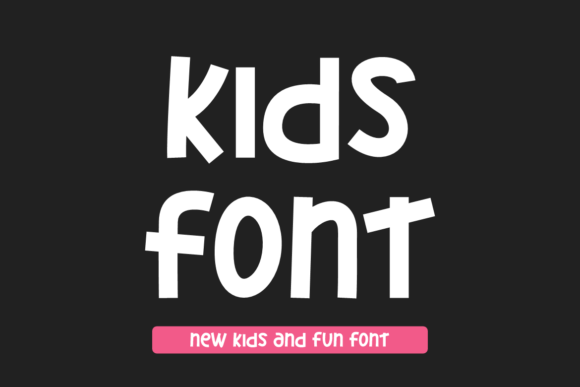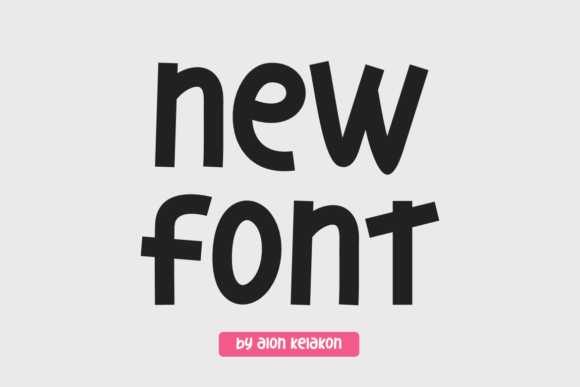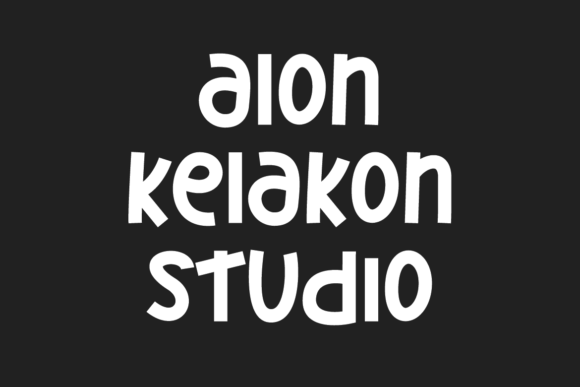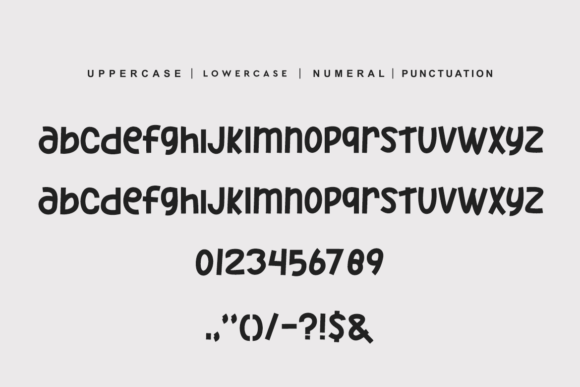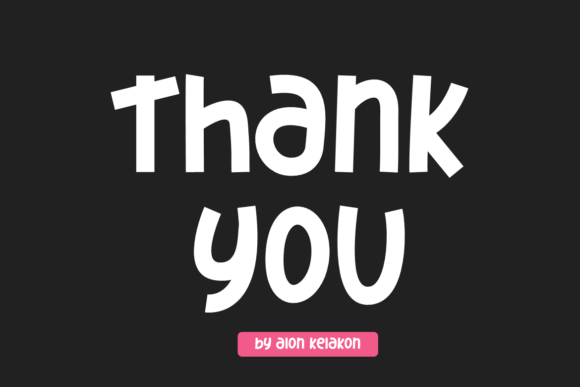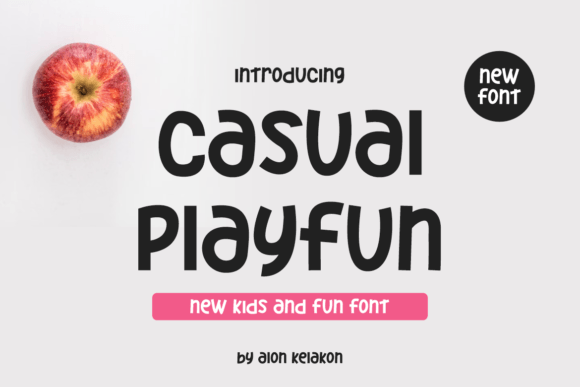
Casual Playfun Font: The Ultimate Design Companion for Creatives
Are you tired of using the same old fonts for your designs? Look no further! Introducing the Casual Playfun Font, a unique and versatile typeface that’s perfect for adding a touch of playfulness to your creations. In this article, we’ll dive into the world of Casual Playfun Font and explore its features, uses, and benefits for designers and crafters.
What makes Casual Playfun Font unique?
Casual Playfun Font stands out from the crowd with its distinctive and quirky design. Its casual and relaxed vibe makes it perfect for a wide range of applications, from labeling and clothing to movie scenes, posters, and more. The font’s playful personality shines through in its irregular shapes, varying line widths, and whimsical flair.
Endless possibilities for creative expression
Casual Playfun Font is incredibly versatile, making it perfect for a wide range of design applications. Here are just a few ideas to get you started:
- Labeling: Add a playful touch to your product labels, packaging, or branding materials.
- Clothing: Create eye-catching t-shirt designs, hoodies, or hats that showcase your personality.
- Movie scenes: Add a dash of whimsy to your movie titles, posters, or scene headers.
- Posters: Create bold and eye-catching posters for events, promotions, or advertising campaigns.
- Movie titles: Make your movie titles stand out with a unique and playful font.
- Gigs: Promote your music gigs or events with stylish and attention-grabbing posters.
- Album covers: Give your music a visual identity with a custom album cover featuring Casual Playfun Font.
- Logos: Create a memorable and playful logo for your brand or business.
Tips for getting the most out of Casual Playfun Font
To get the most out of Casual Playfun Font, here are a few tips:
- Experiment with colors: Try pairing the font with bold and bright colors to really make it pop.
- Play with sizes: Experiment with different font sizes to create visual interest and hierarchy.
- Mix and match: Combine Casual Playfun Font with other fonts to create a unique and eye-catching design.
In conclusion, Casual Playfun Font is a unique and versatile typeface that’s perfect for designers and crafters looking to add a touch of playfulness to their creations. With its ready-to-use format, endless possibilities for creative expression, and range of benefits, this font is sure to become a staple in your design toolkit. So why wait? Download Casual Playfun Font today and start bringing your creative ideas to life!